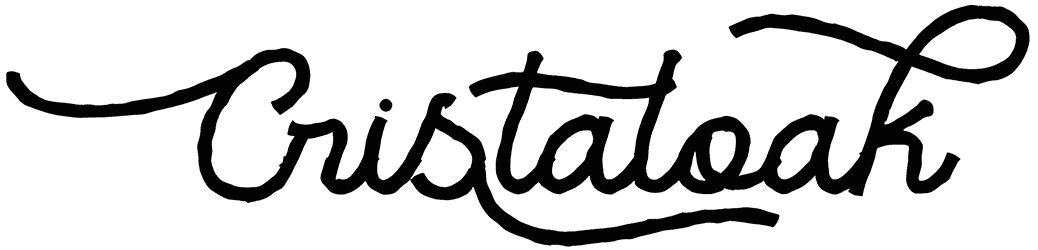
Cristaloak Font
Your layout feels realistic, casual, and ravishing when you use a handwritten font like this one. The unique hand-lettering face of the Cristaloak font can give a modern mood to your intended layout, like a high school team logo design. This cursive font doesn’t support numbers, yet it can add special details to your projects.